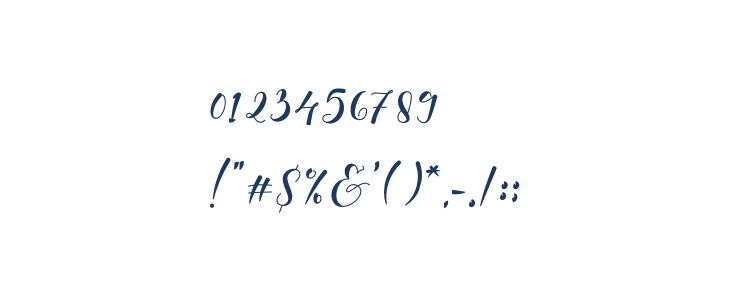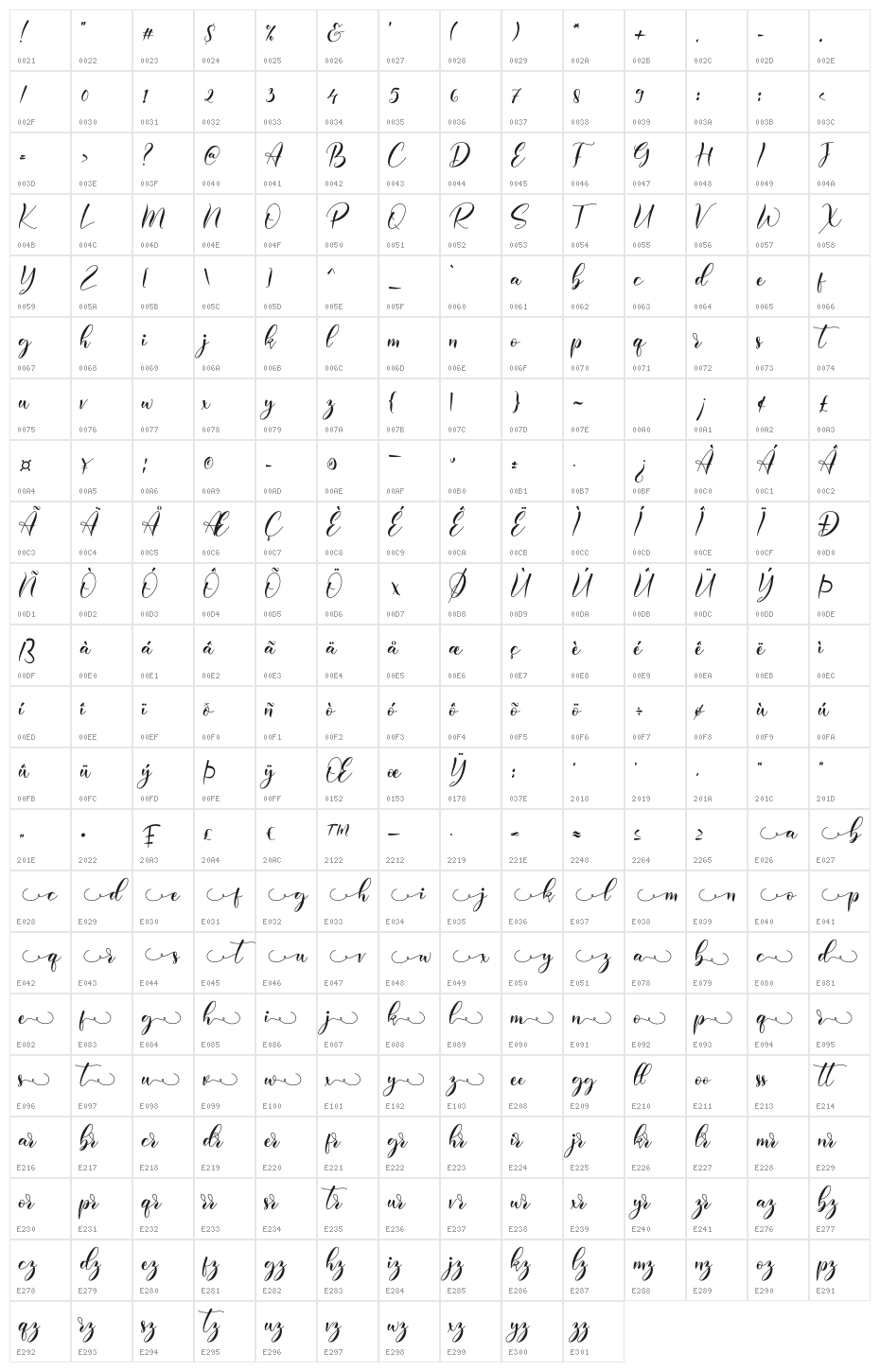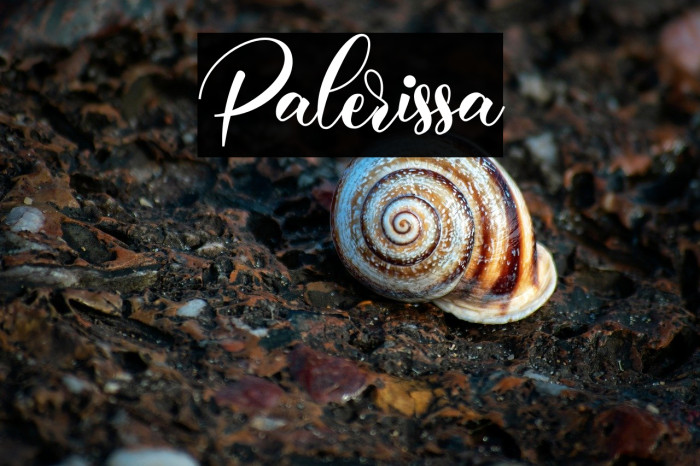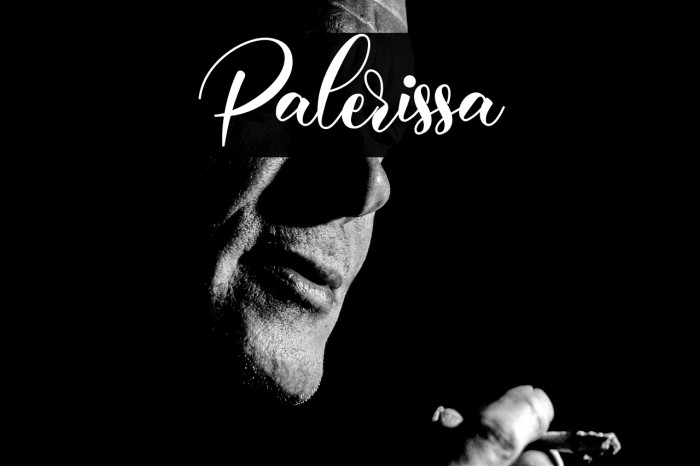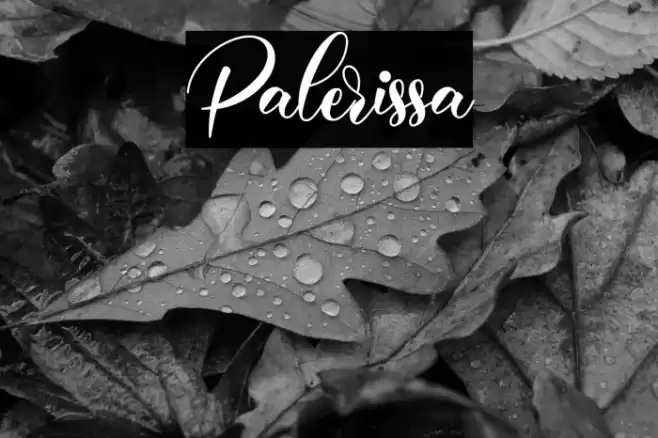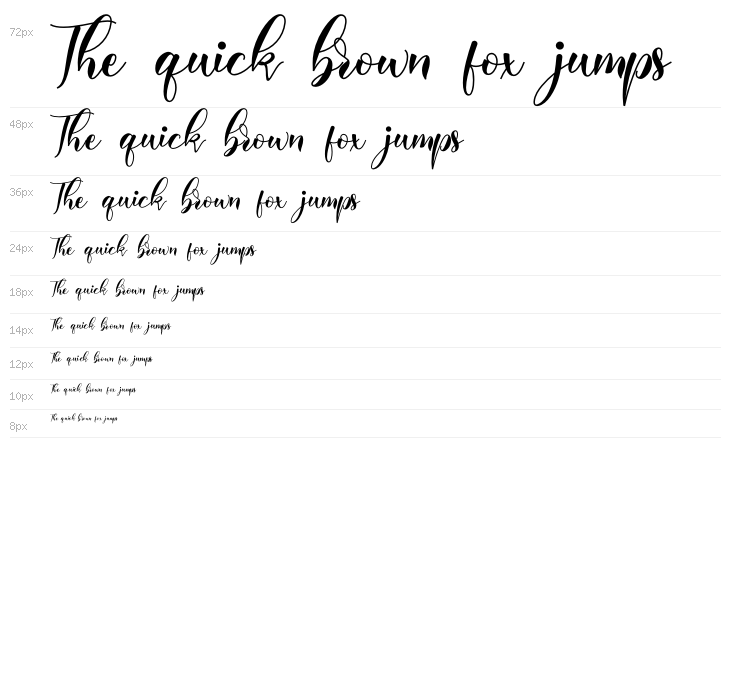
Palerissa Font
Palerissa Description
This elegant script font features flowing, interconnected letters with a graceful and sophisticated appearance. The uppercase letters are tall and slightly slanted, with sweeping curves and delicate flourishes that add a touch of luxury. The lowercase letters maintain a consistent style, with smooth transitions and a fluid motion that enhances readability. The numbers and special characters are designed to complement the overall aesthetic, offering a cohesive look across all elements. This font exudes a sense of refinement and charm, making it ideal for projects that require a touch of elegance.
| Proposed Projects | Ideal for wedding invitations, elegant branding, luxury product packaging, and sophisticated event posters. |